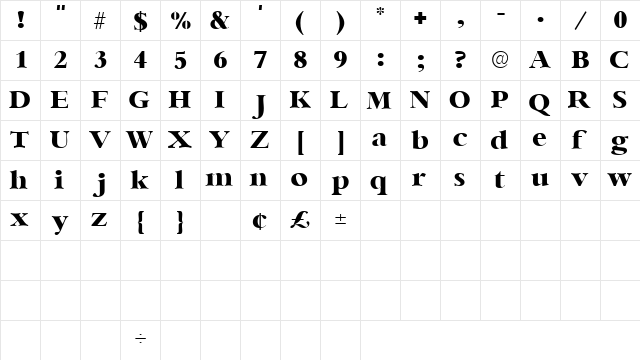
IngenueSSK Regular
Design Context for IngenueSSK Typeface
IngenueSSK offers clean, dependable letterforms without strong stylistic allegiance, making it a practical choice for designers who need flexibility.
Pro Tip: Use IngenueSSK in both headline and body roles to test its range before committing to a single application.